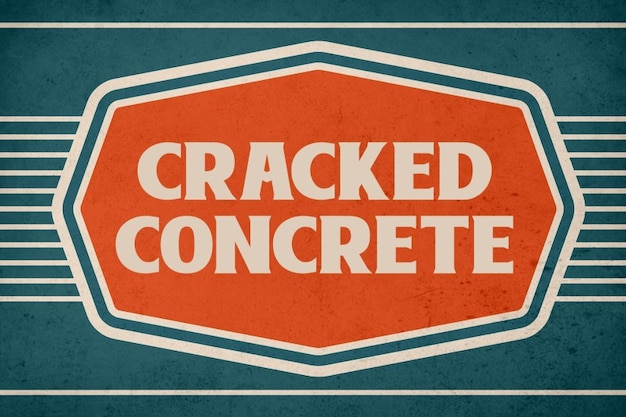
Cracked Concrete
Cracked Concrete Font
Cracked Concrete is a modern, basic font with a raw, industrial edge. Its simple yet bold letterforms evoke the rough texture of cracked concrete, blending urban grit with minimalist design. Perfect for contemporary branding, posters, or construction-themed projects, Cracked Concrete delivers a strong, grounded aesthetic with a touch of rugged charm.